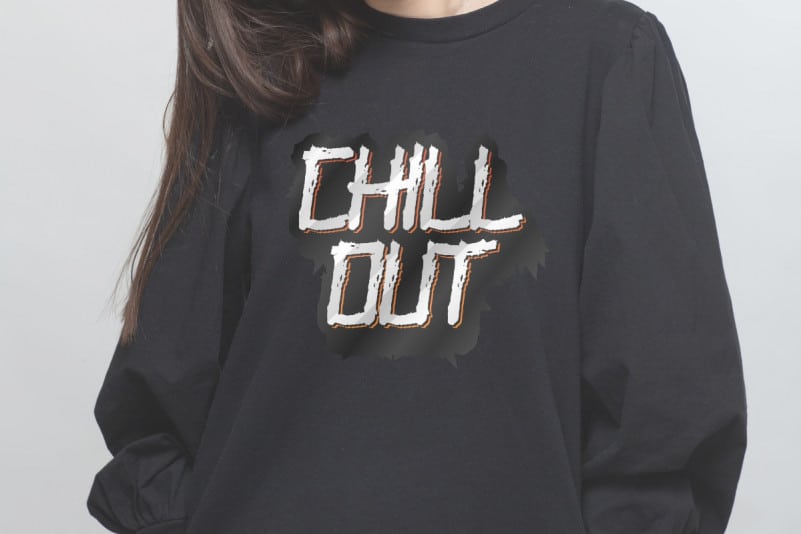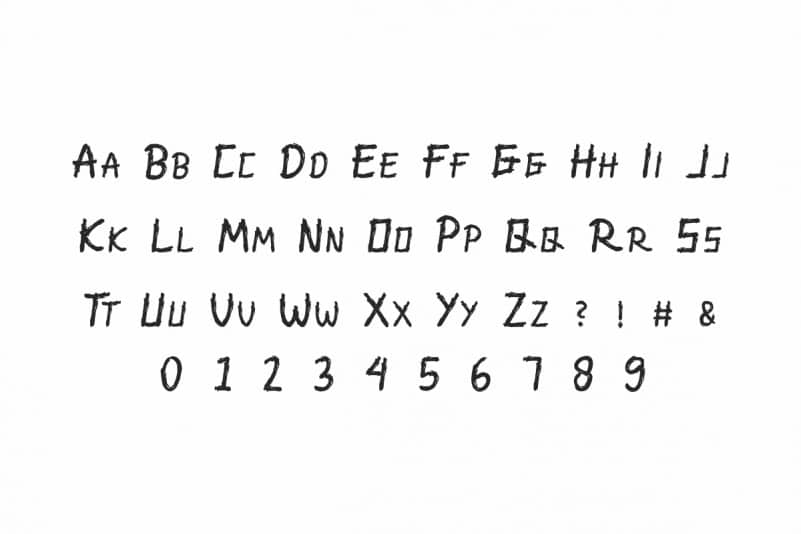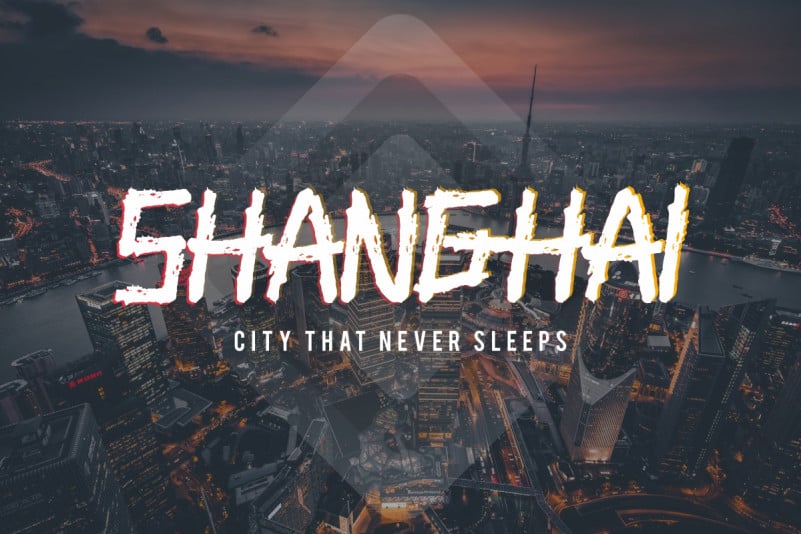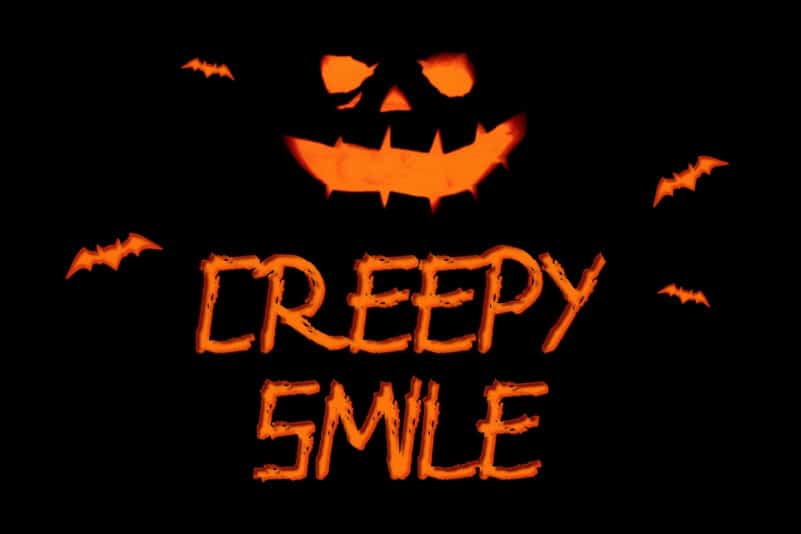
Frighter Unique Display Font
Frighter Unique Display Font will be great for any projects (require extended license) including : branding, logo, stationery, business card, signage, flyer, brochure etc. The them of this font is horror, games, speed, racing, sport, grunge, rough, complex, unsual etc